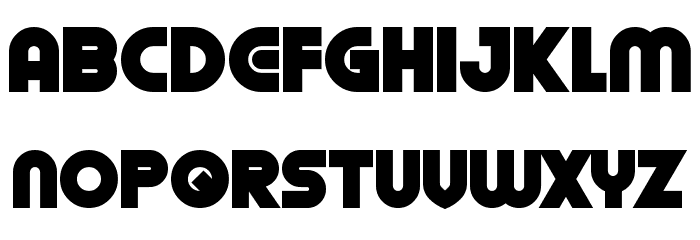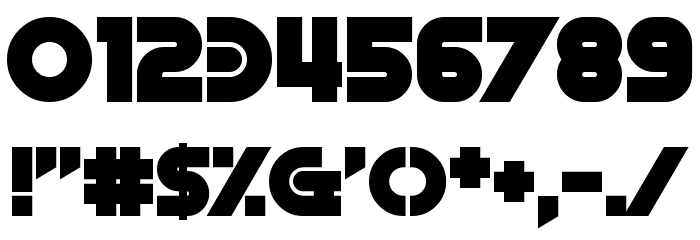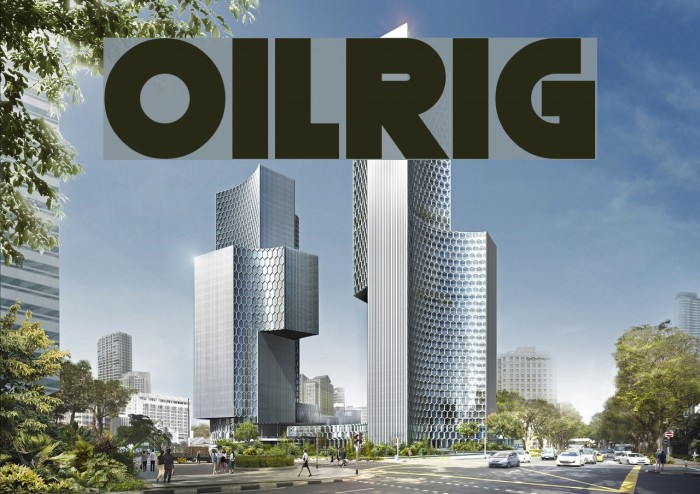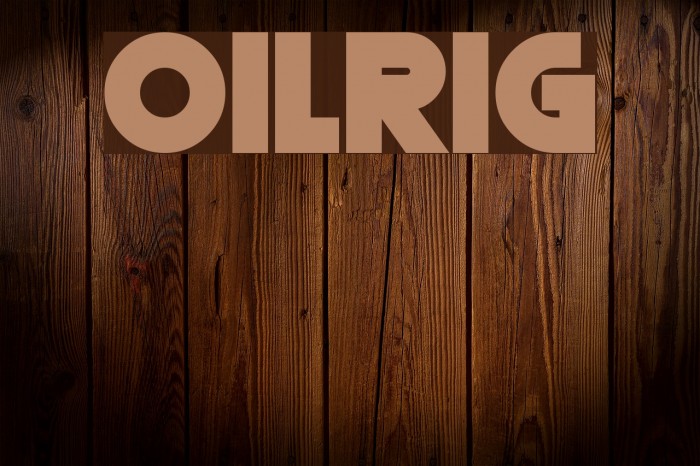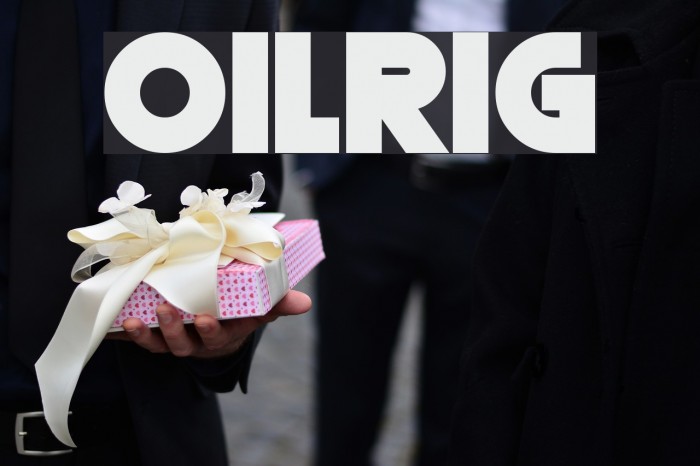
Oilrig Font
This font features a bold, geometric design with a strong emphasis on circular and angular elements. The characters are constructed with thick strokes and minimal contrast, creating a uniform and cohesive appearance. The uppercase letters are particularly striking, with unique cutouts and shapes that give the font a futuristic and industrial feel. The numbers and special characters maintain this aesthetic, ensuring consistency across all glyphs. The overall style is modern and impactful, making it suitable for attention-grabbing designs.
- Proposed Projects: Ideal for branding, posters, and headlines that require a strong, modern impact.